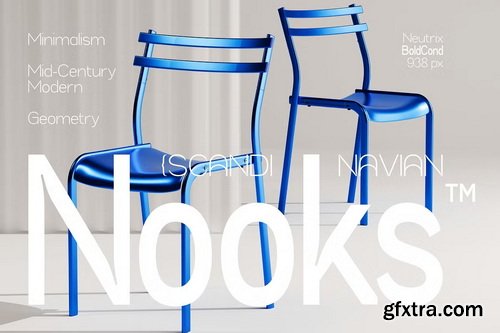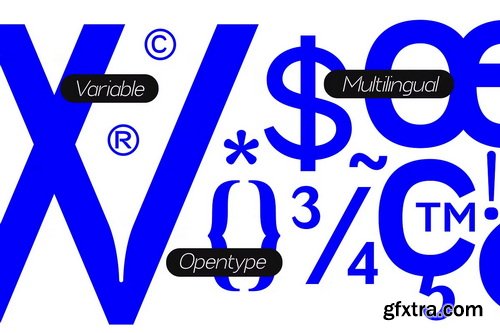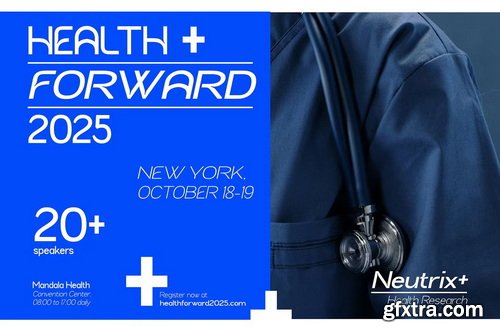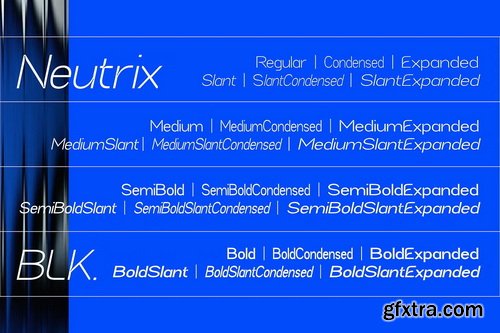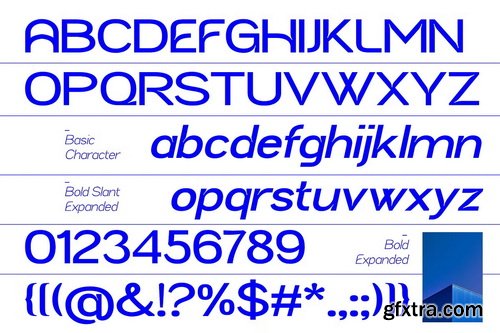
- Neutrix is a modern font family with 3 axes: Weight, Width, and Slant, available in 24 statistical styles. Featuring a Neo-Grotesk style, Neutrix is neutral, clean, and highly flexible — perfect for branding, UI/UX, editorial, and digital design.
- With stable letterforms and balanced proportions, Neutrix maintains readability across various sizes. It includes full OpenType features and support for Latin Extended languages.
- Features: • 3 Axis Variables (Weight, Width, Slant) • 24 Static Styles • Full OpenType features • Multilingual support